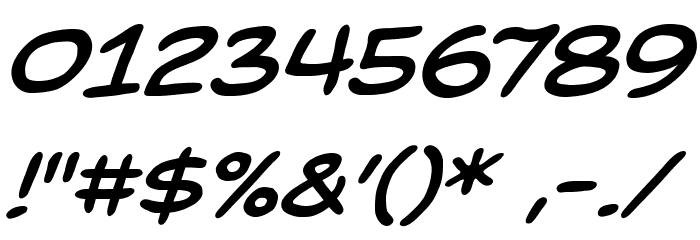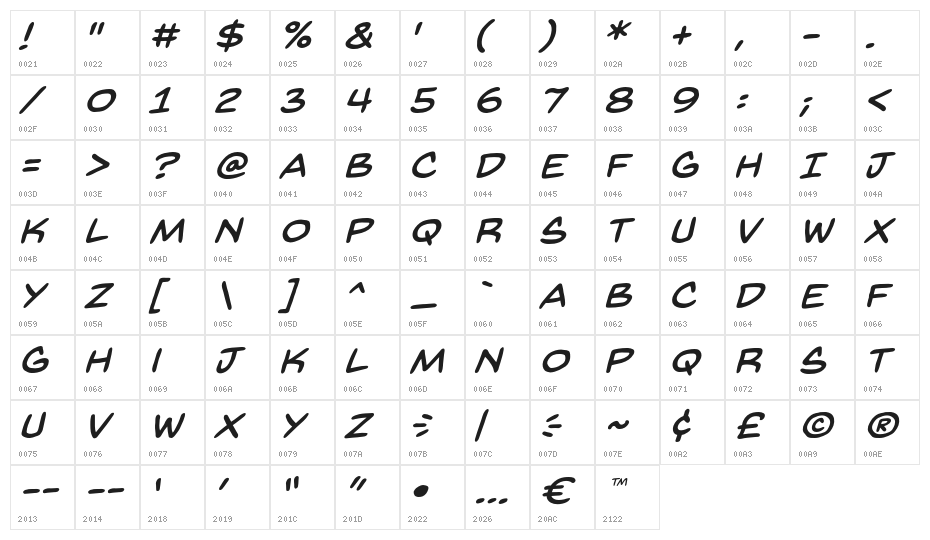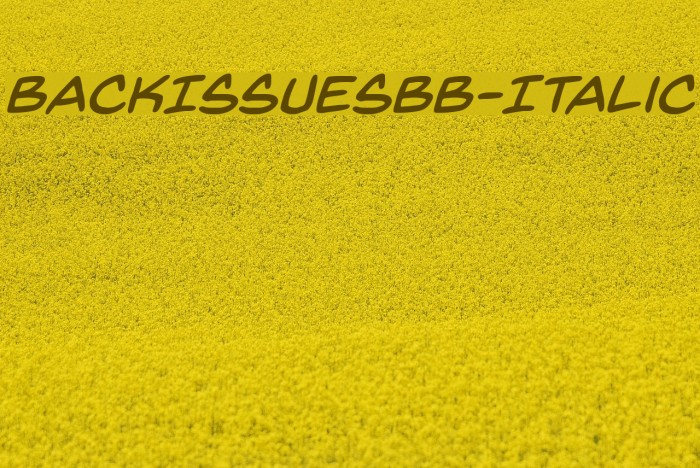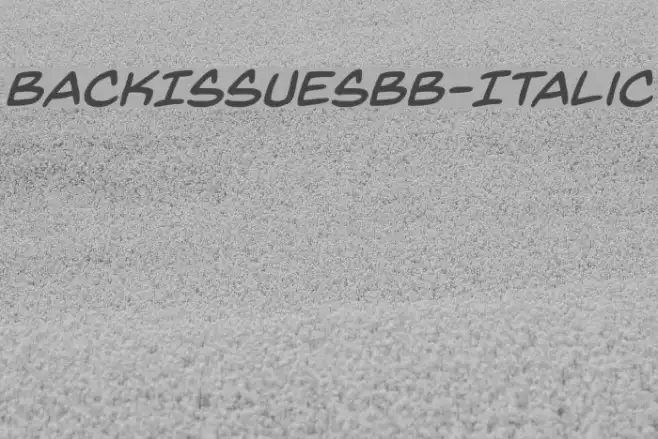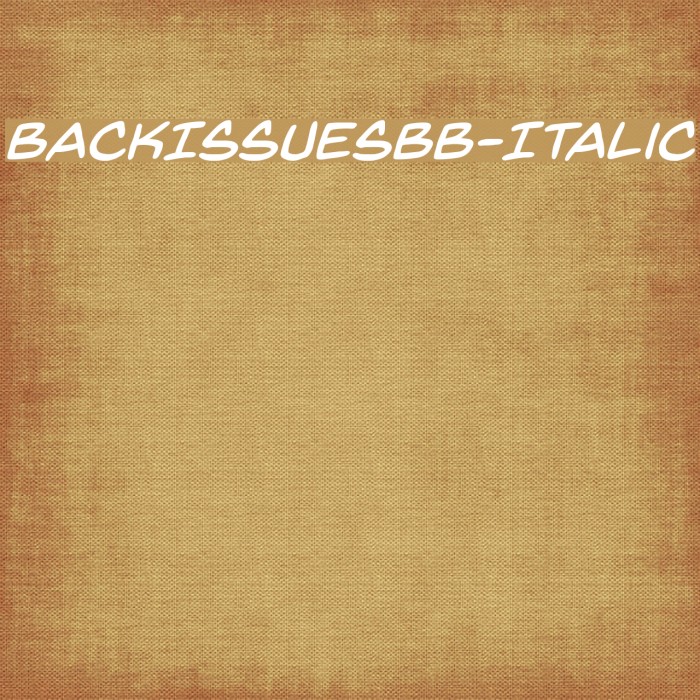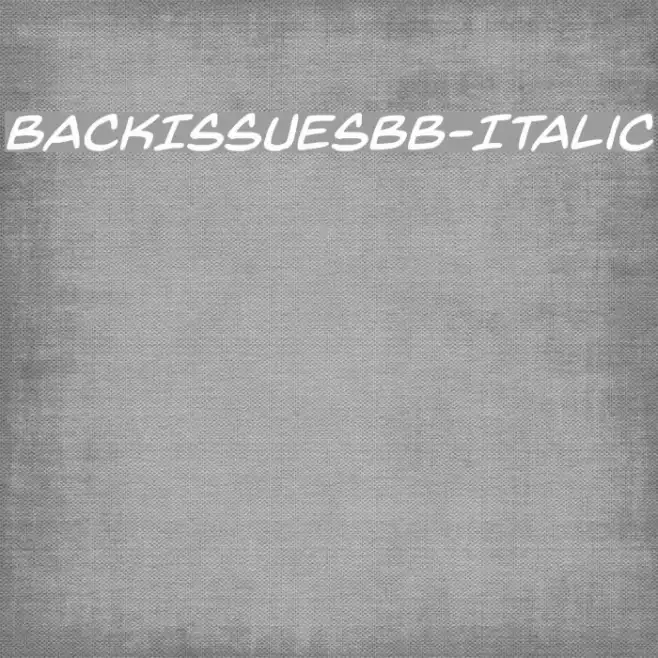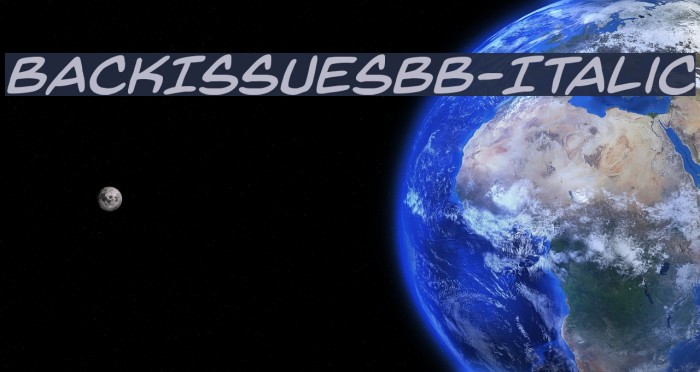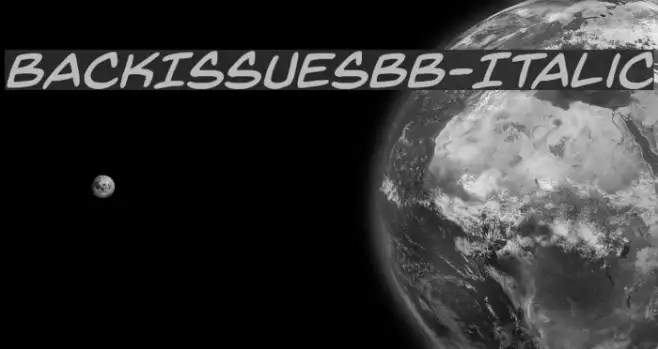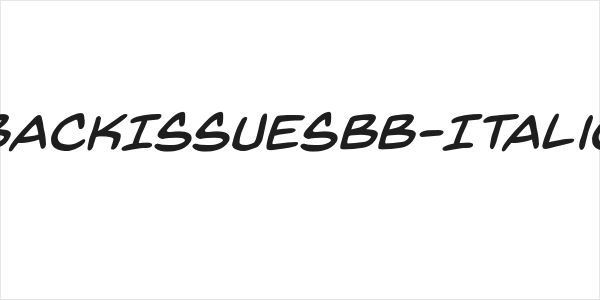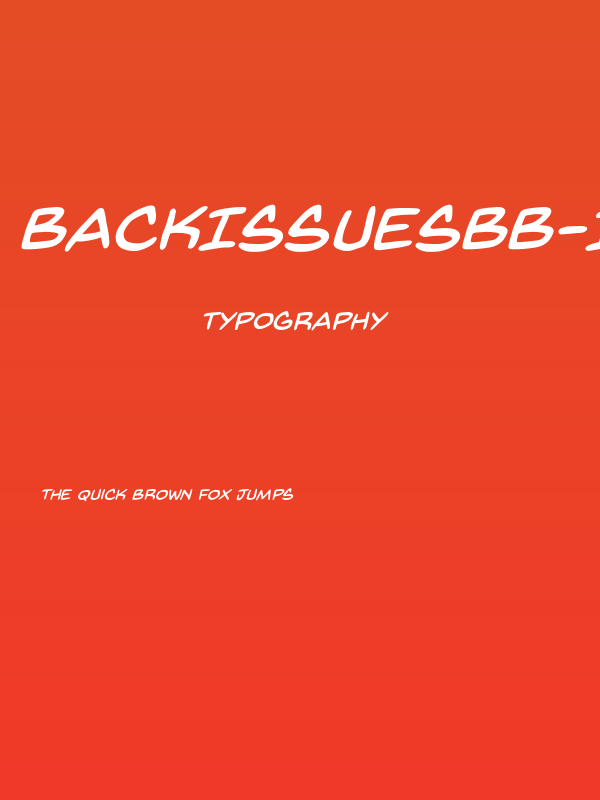
BackIssuesBB-Italic Font
BackIssuesBB-Italic Description
This font features a playful and dynamic style with a handwritten appearance. The letters are slightly slanted, giving it an italicized look, and the strokes are smooth and fluid, reminiscent of casual handwriting. The characters are well-spaced, ensuring readability while maintaining a lively and informal tone. The numbers and special characters follow the same style, integrating seamlessly with the alphabet. This font is ideal for projects that require a personal touch or a sense of informality.